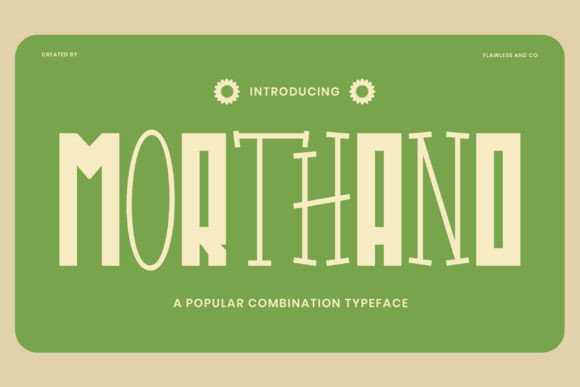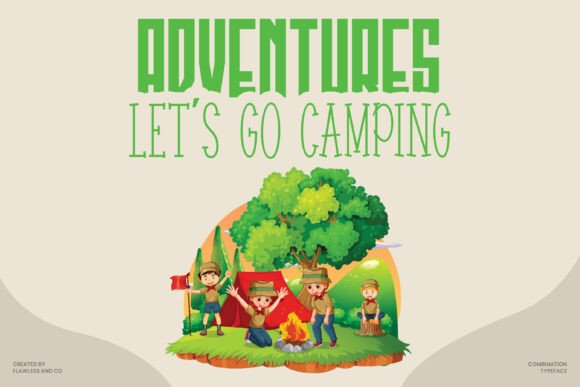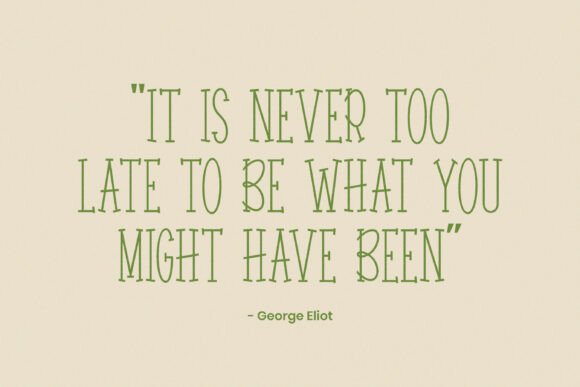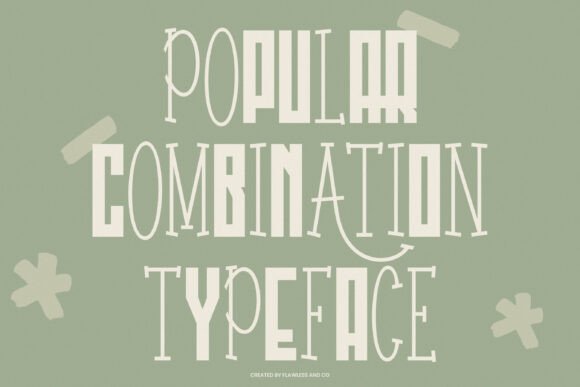
Morthano Font: Playful Display Font for Unique Branding & Kids’ Designs
About the Morthano Font
The Morthano Font offers a perfect balance of form and function for your design needs. Morthano is a lively and imaginative combination font that brings together the best of fun and creativity. Featuring a mix of quirky shapes, bold strokes, and dynamic character, Morthano is perfect for playful branding, kids’ designs, creative packaging, and eye-catching social media posts. Its energetic style makes every project feel fresh, youthful, and full of personality. Whether you’re creating a logo, poster, or anything in between, Morthano adds a vibrant spark that stands out from the crowd.
Morthano Font Usage Examples
Morthano Font Example